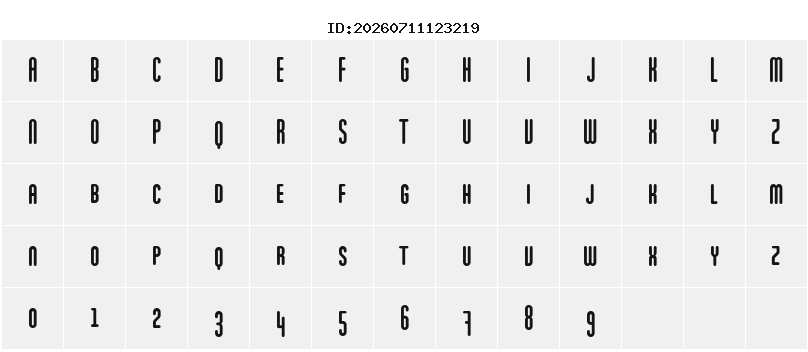
• Font Name: MartenCaps
• Full Font Name: MartenCaps
• Copyright: ©1991 Marten Wenzel FontShop FontFont™
About MartenCaps.ttf
MartenCaps.ttf is a modern, elegant sans-serif font designed for ultimate readability and visual harmony. Perfect for branding, headlines, web design, and print materials.